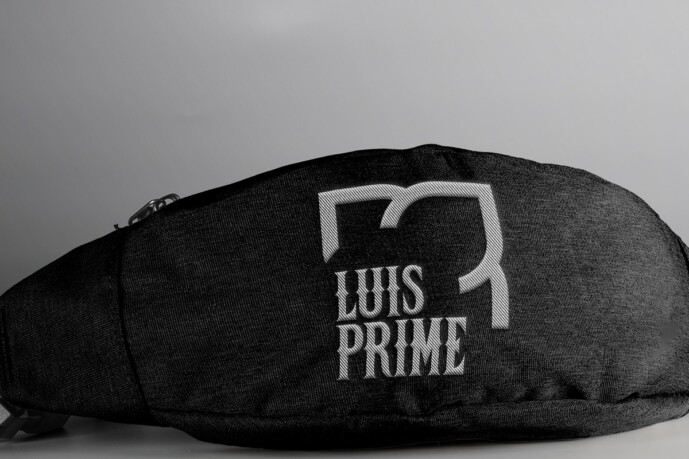
Ethiopia Embroidery Font
Designer: overlaytemplates
Ethiopia Embroidery Font an embroidery serif BX font that combines traditional craftsmanship with modern design sensibilities. Perfect for designers and crafters, Ethiopia offers a unique blend of intricate stitching and refined serif lettering, bringing a touch of elegance and cultural richness to your projects.
Crafted with meticulous attention to detail, Ethiopia is ideal for a wide range of applications including apparel design, home decor, personalized gifts, and more. Each letter features detailed embroidery-inspired elements that evoke the beauty of traditional needlework, while maintaining a clean and contemporary serif style.
The “Ethiopia” font includes a complete set of uppercase and lowercase letters, numbers, and punctuation marks, ensuring versatility and flexibility for all your creative needs. Whether you’re embellishing garments or adding decorative touches to home accessories, Ethiopia enhances your designs with its elegant and culturally rich typography.
Experience the fusion of tradition and modernity with Ethiopia, an embroidery serif BX font that adds a sophisticated and artistic touch to your creations.